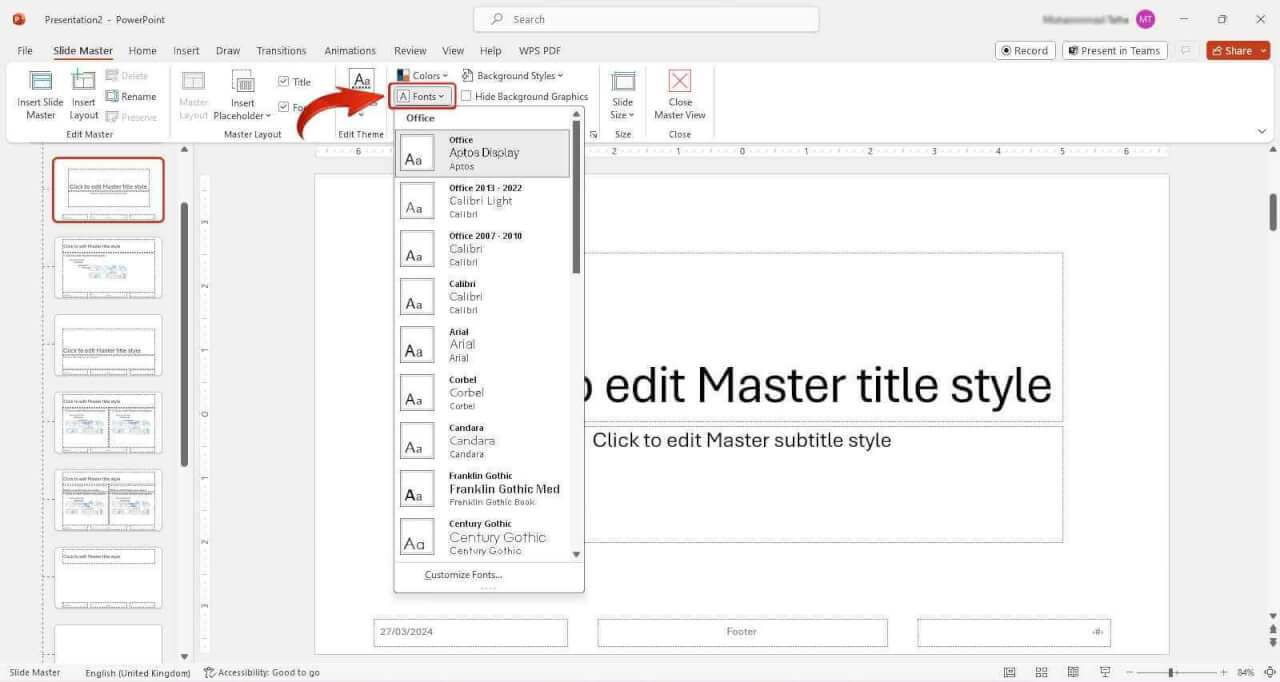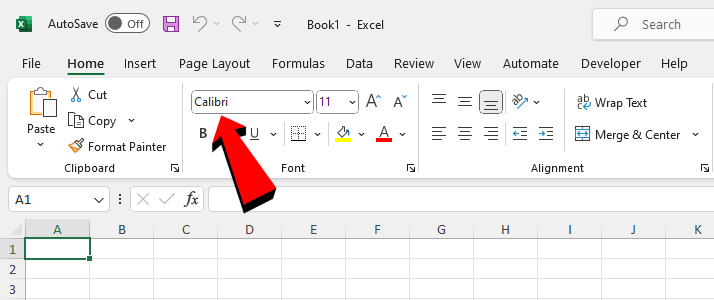
What’s Calibri? - Microsoft's Old Default Font
Calibri is a font familiar to many, and even if you haven’t heard of it, chances are you've encountered it at least once in your lifetime. It's often the default font for text, making it widely recognized. Calibri font’s popularity extends beyond Microsoft Office; many other office suites rely on it for its simplicity and versatility. In this article, we explore the reasons on what makes this font unique and why it has remained the default choice for so long.
What’s Calibri Font?
Calibri is a modern sans-serif font widely used in Microsoft Office. It replaced Times New Roman in Word and Arial in PowerPoint, Excel, Outlook, and WordPad when it was introduced in 2007. Designed by Luc(as) de Groot, Calibri has a rounded design, giving it a warm and soft feel.
In January 2024, Microsoft replaced Calibri with a new default font called Aptos after 17 years of Calibri's use.
Calibri is part of the ClearType Font Collection, a suite of fonts designed to work effectively with Microsoft's ClearType text rendering system, which enhances text clarity on LCD monitors. The other fonts in this collection include Cambria, Candara, Consolas, Constantia, and Corbel.
Types of Calibri Font in Microsoft Office:
• Calibri Regular
• Calibri Bold
• Calibri Italic
• Calibri Bold Italic
What Are the Characteristics of Calibri Font?
• Subtly rounded stems and corners, visible at larger sizes.
• Sloped form with true italic style, influenced by handwriting.
• Characters from Latin, Latin extended, Greek, Cyrillic, and Hebrew scripts.
• Utilizes sophisticated OpenType formatting, including ligatures, various figures, and alternate characters.
• Some unsupported features in Office, such as true small caps and superscript/subscript glyphs.
• Visible homoglyph, making lowercase letter "l" and uppercase letter "I" effectively indistinguishable.
• Design similarities to TheSans family, with straight ends instead of rounding.
• Potential addition of Bulgarian alphabet variant letterforms in the future, as mentioned by the designer.
Why Aptos Replaces Calibri as Microsoft Office's New Default Font?
• Fresh Look: Microsoft aimed for a new default font to modernize its software.
• Improved Readability: Aptos offers enhanced legibility, especially on high-resolution screens.
• User Engagement: Users reacted strongly on social media, sparking discussions about fonts.
• Brand Refresh: The change reflects Microsoft's desire to stay current and innovative.
• Global Appeal: Aptos was chosen for its universal appeal and versatility across languages and cultures.
Microsoft Outlook Options
Step 4: Next, in the Options dialog box, select the "Mail" tab, and then click on "Stationery and Fonts".
Microsoft Outlook Stationery and Fonts
Step 5: You can now adjust the default font for "New Mail messages" and "Replying or Forwarding messages" individually by selecting "Font”.
Microsoft Outlook New Mail font options